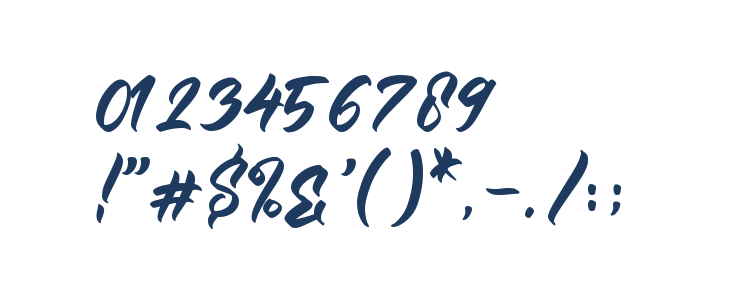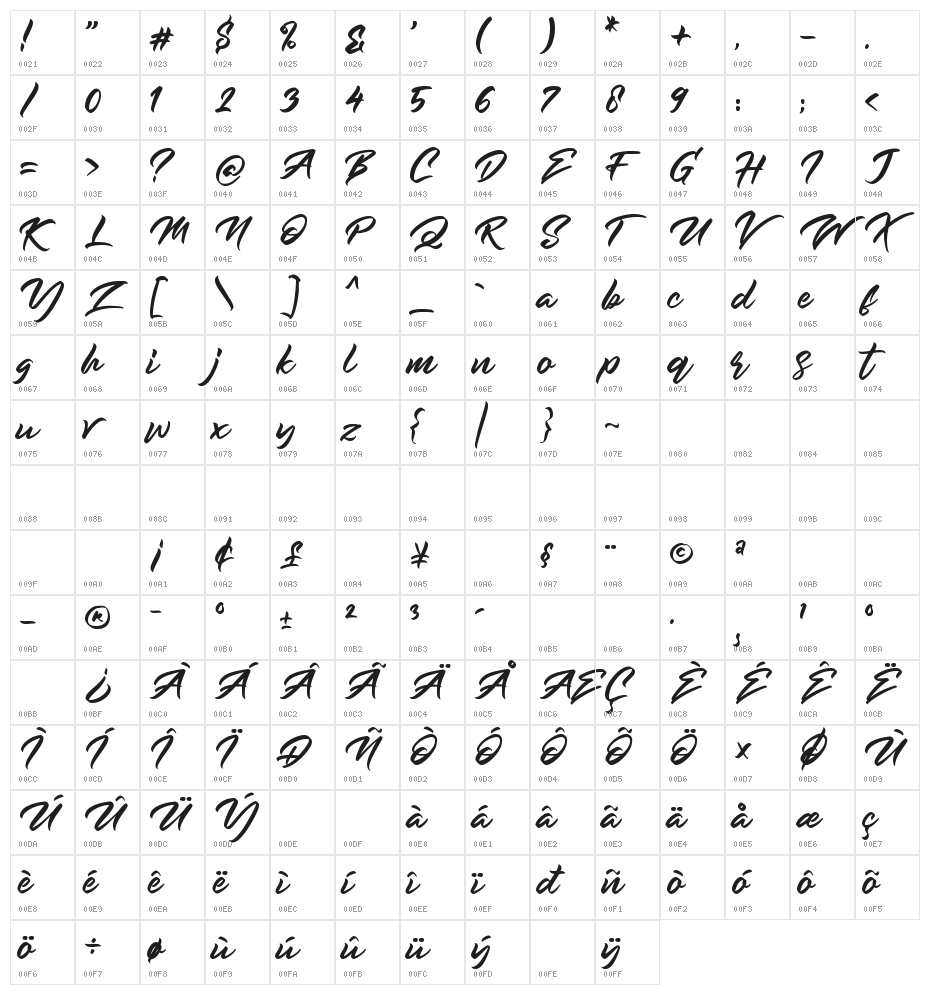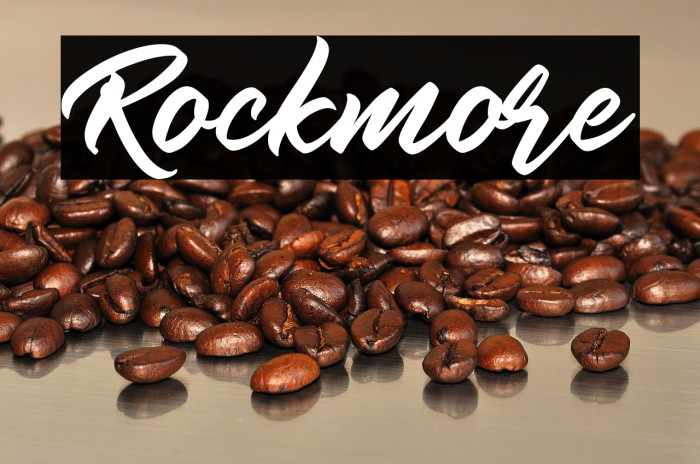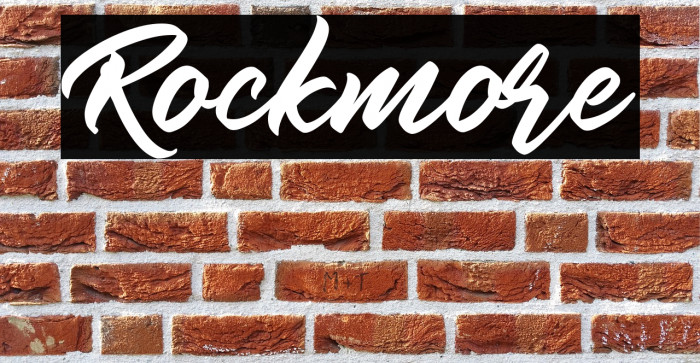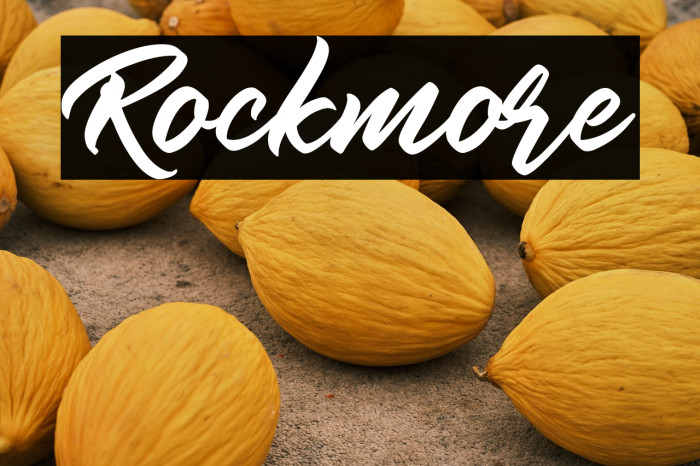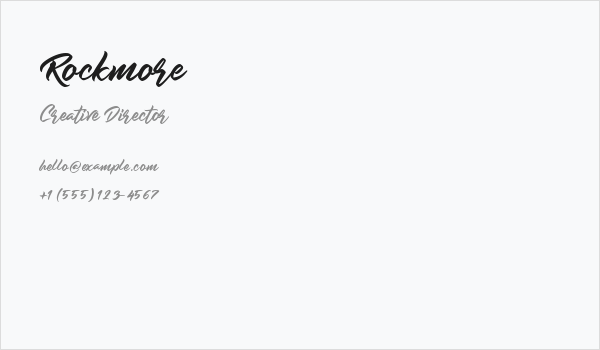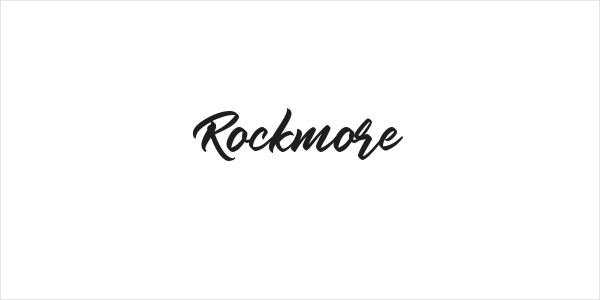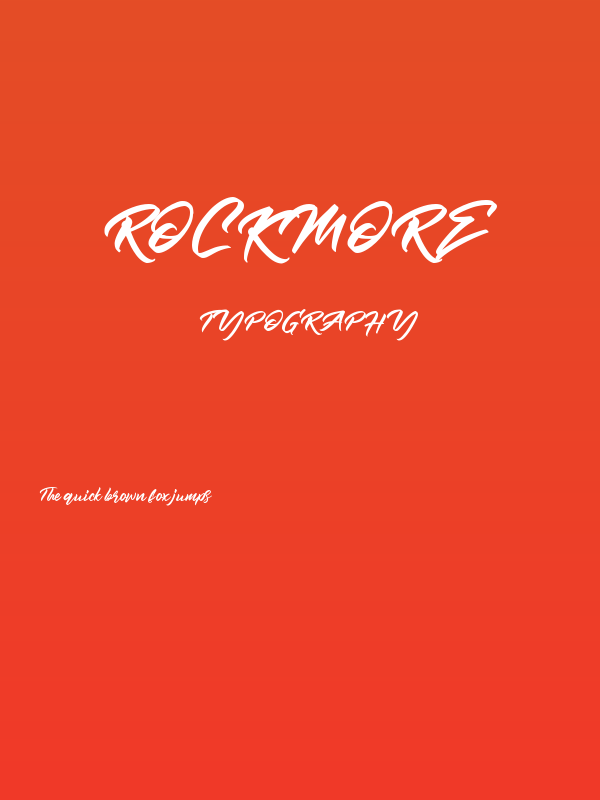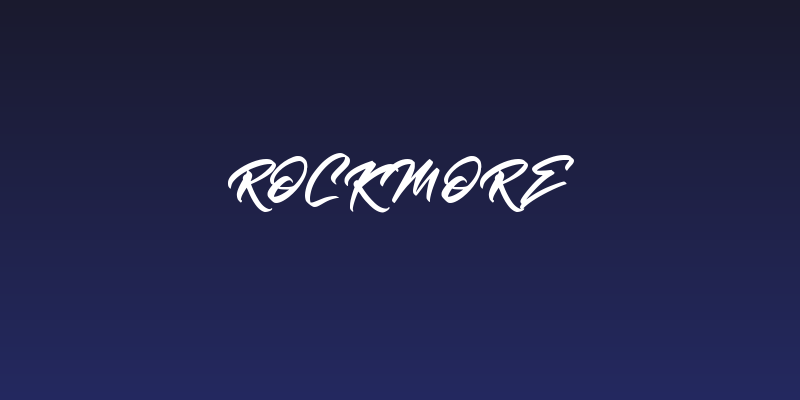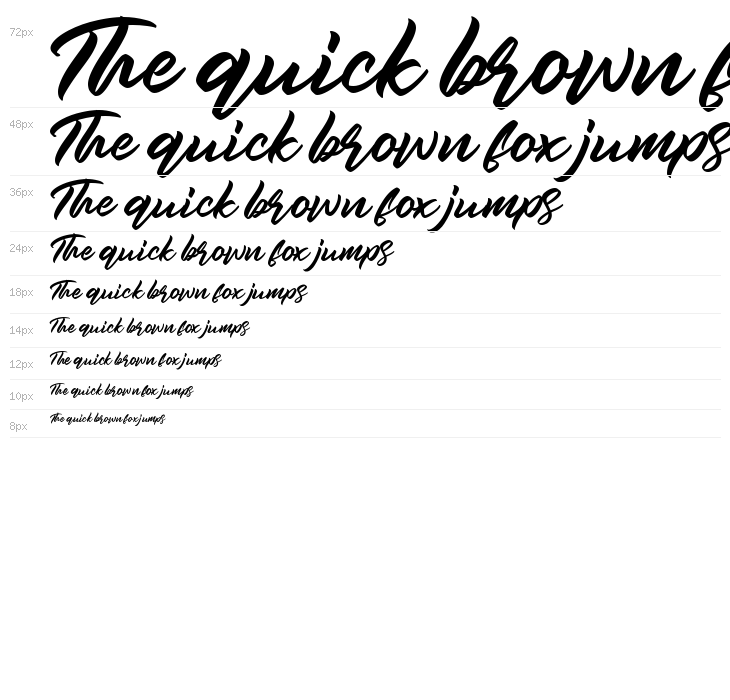
Rockmore Font
Rockmore Description
This font exhibits a bold and expressive script style, characterized by its fluid and dynamic strokes. The uppercase letters are elegantly connected, creating a sense of movement and rhythm. The lowercase letters maintain a consistent flow, with each character seamlessly transitioning into the next. The numerals and special characters are crafted with the same attention to detail, ensuring a cohesive appearance across all glyphs. The overall design is both modern and artistic, making it suitable for a variety of creative applications. The font's bold weight and high contrast in stroke thickness enhance its readability while adding a touch of sophistication.